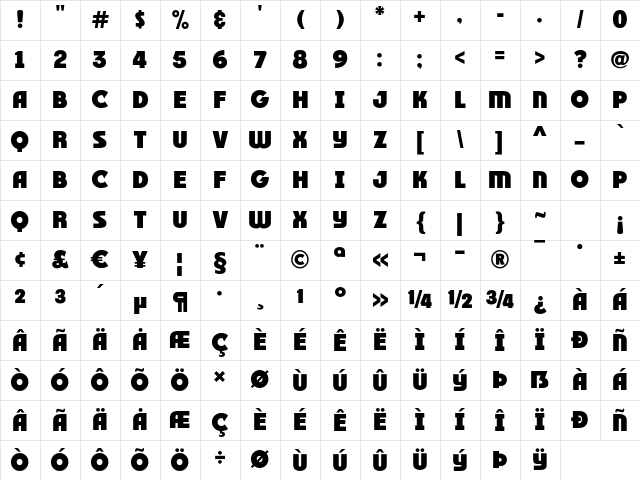
RACE1 Brannt Plus NCV Regular
Foundry: The Fontry
Design Context for RACE1 Brannt Plus NCV
RACE1 Brannt Plus NCV is a composed and adaptable typeface that performs quietly and consistently across a wide range of design contexts.